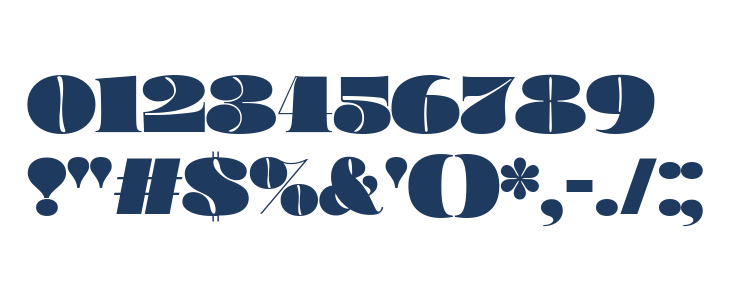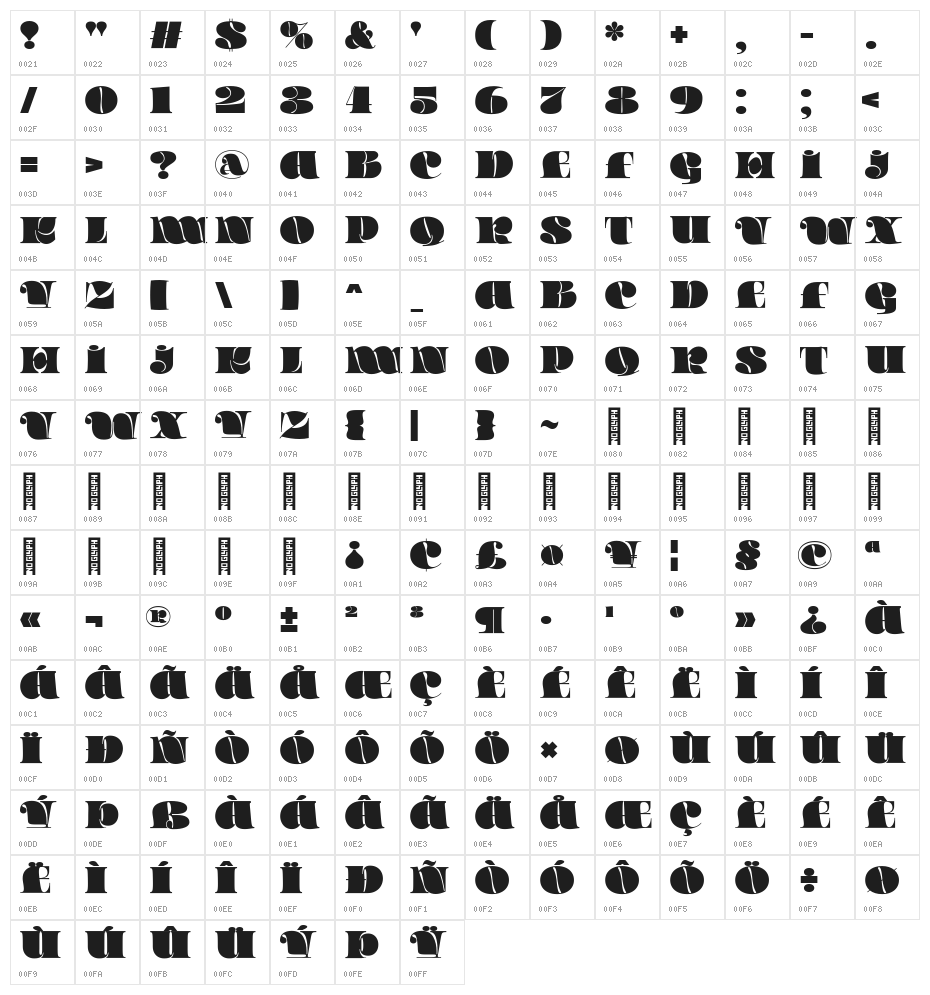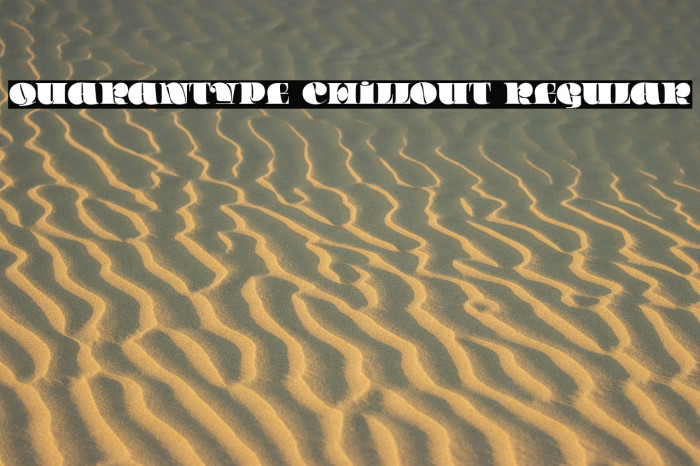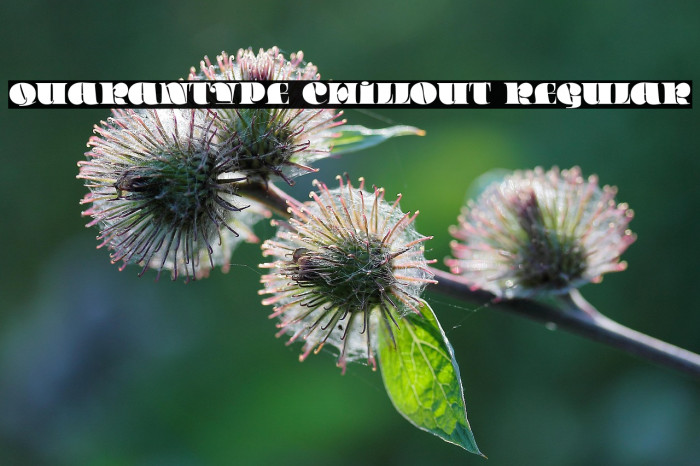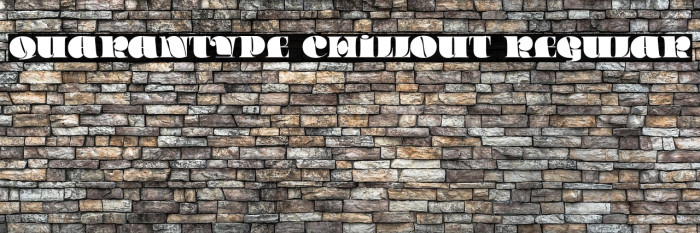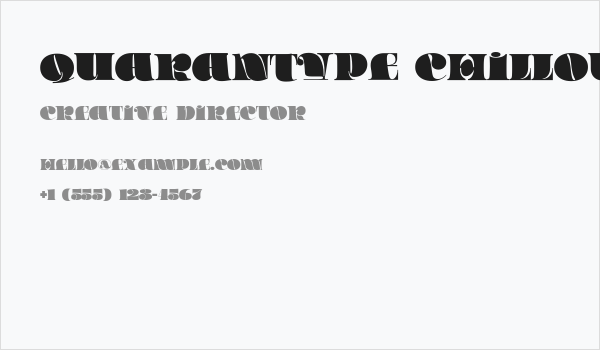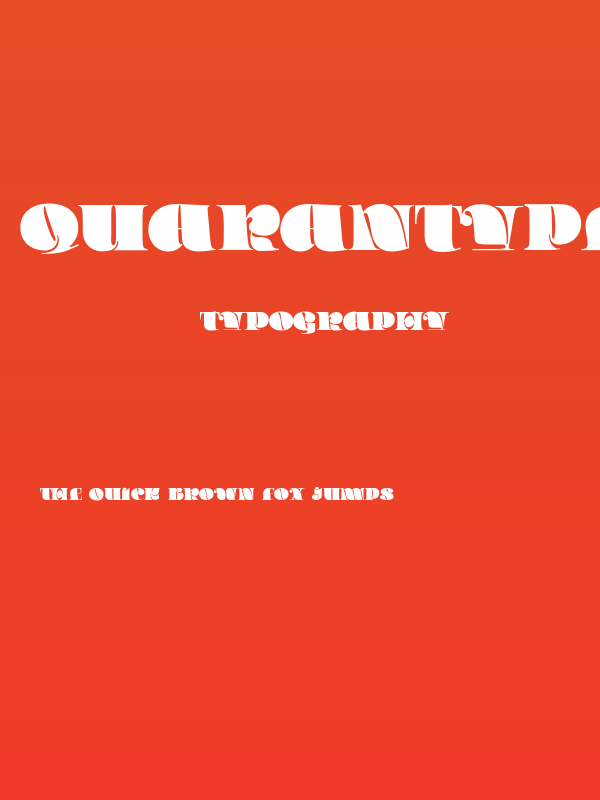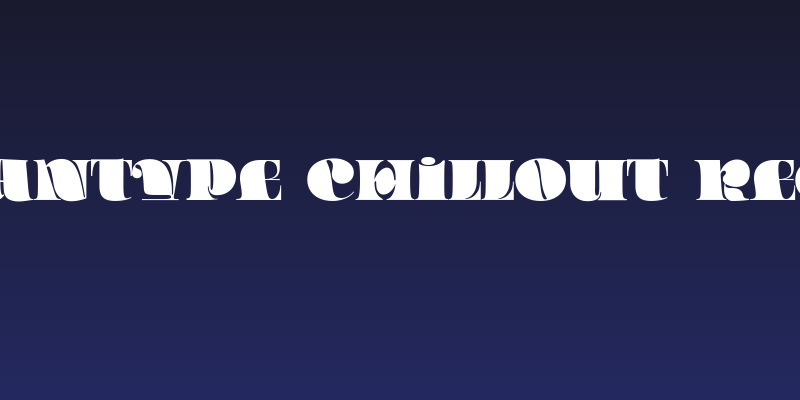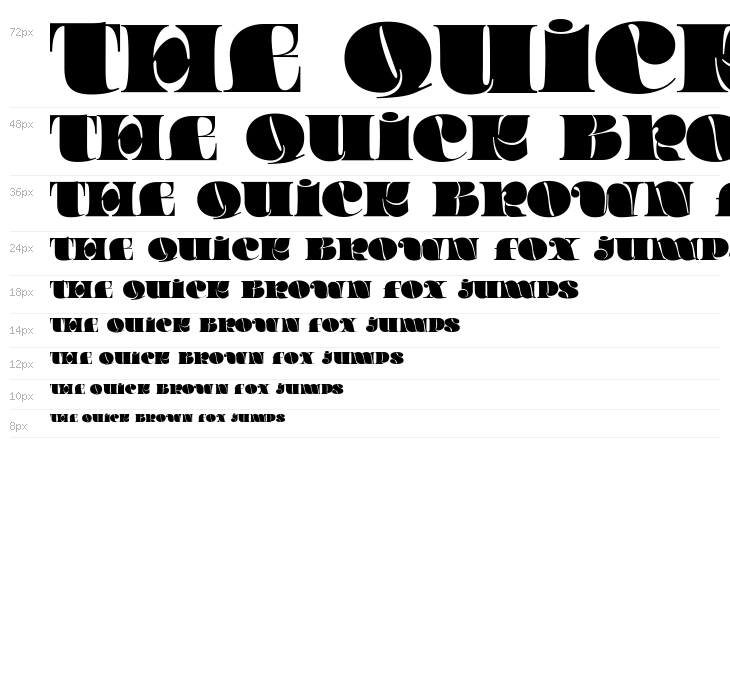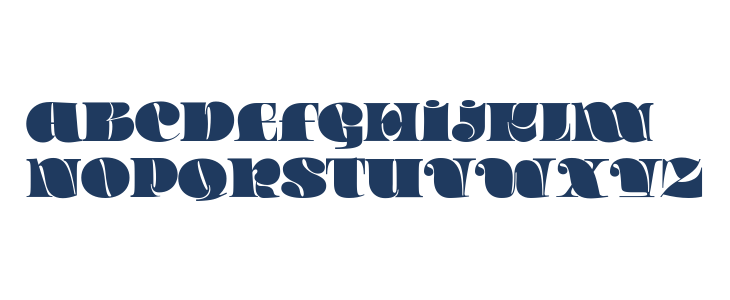
Quarantype Chillout Regular Font
Quarantype Chillout Regular Description
This font exhibits a bold and striking design with a unique blend of geometric shapes and curves. The characters are crafted with high contrast, featuring thick, solid strokes juxtaposed with thin, delicate lines. The overall appearance is modern and artistic, making it stand out in any design. The uppercase and lowercase letters maintain a consistent style, while the numbers and special characters add a playful yet sophisticated touch. Its distinctive look is ideal for creative projects that require a bold statement.
| Proposed Projects | Ideal for branding, posters, album covers, and any project needing a bold, artistic flair. |